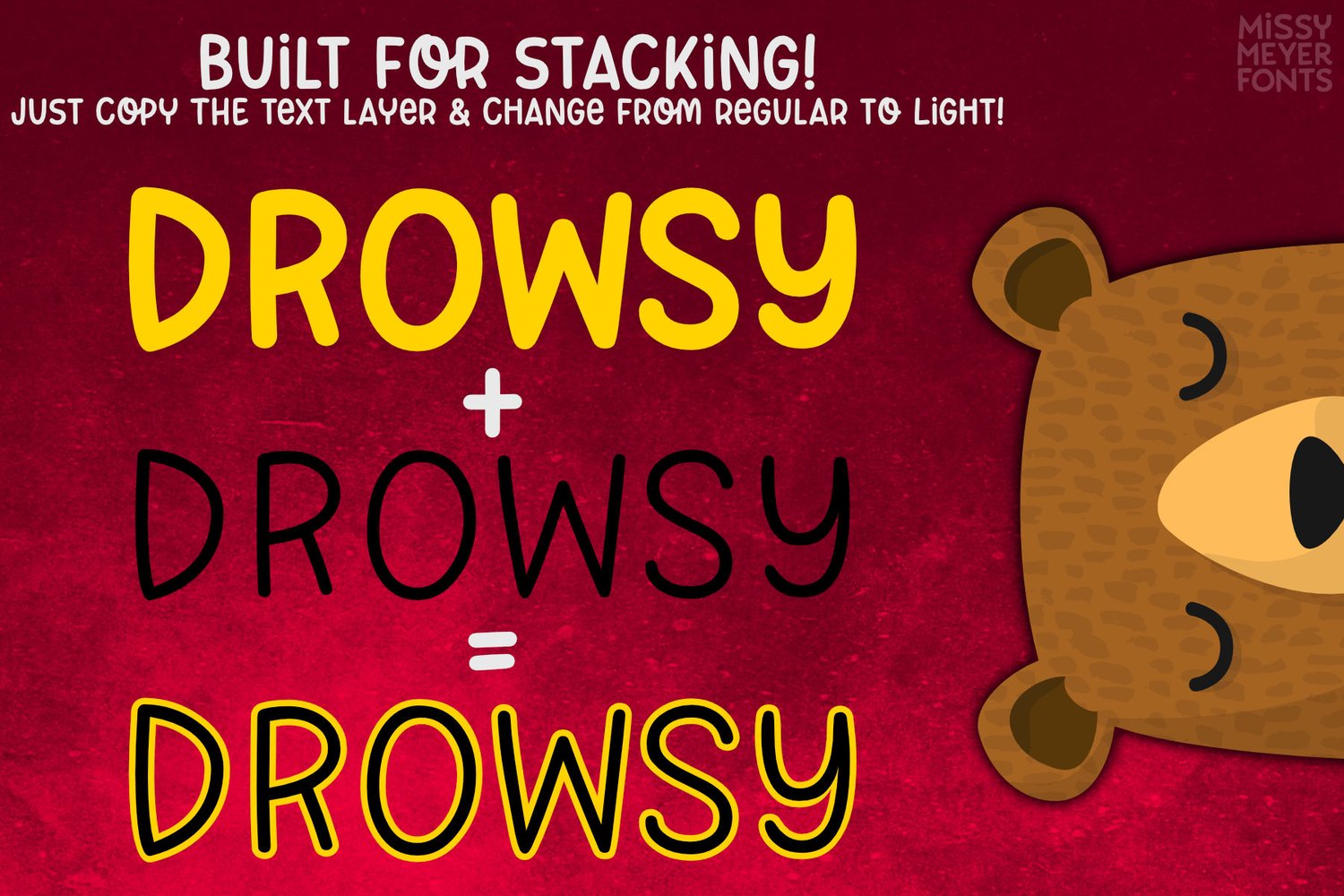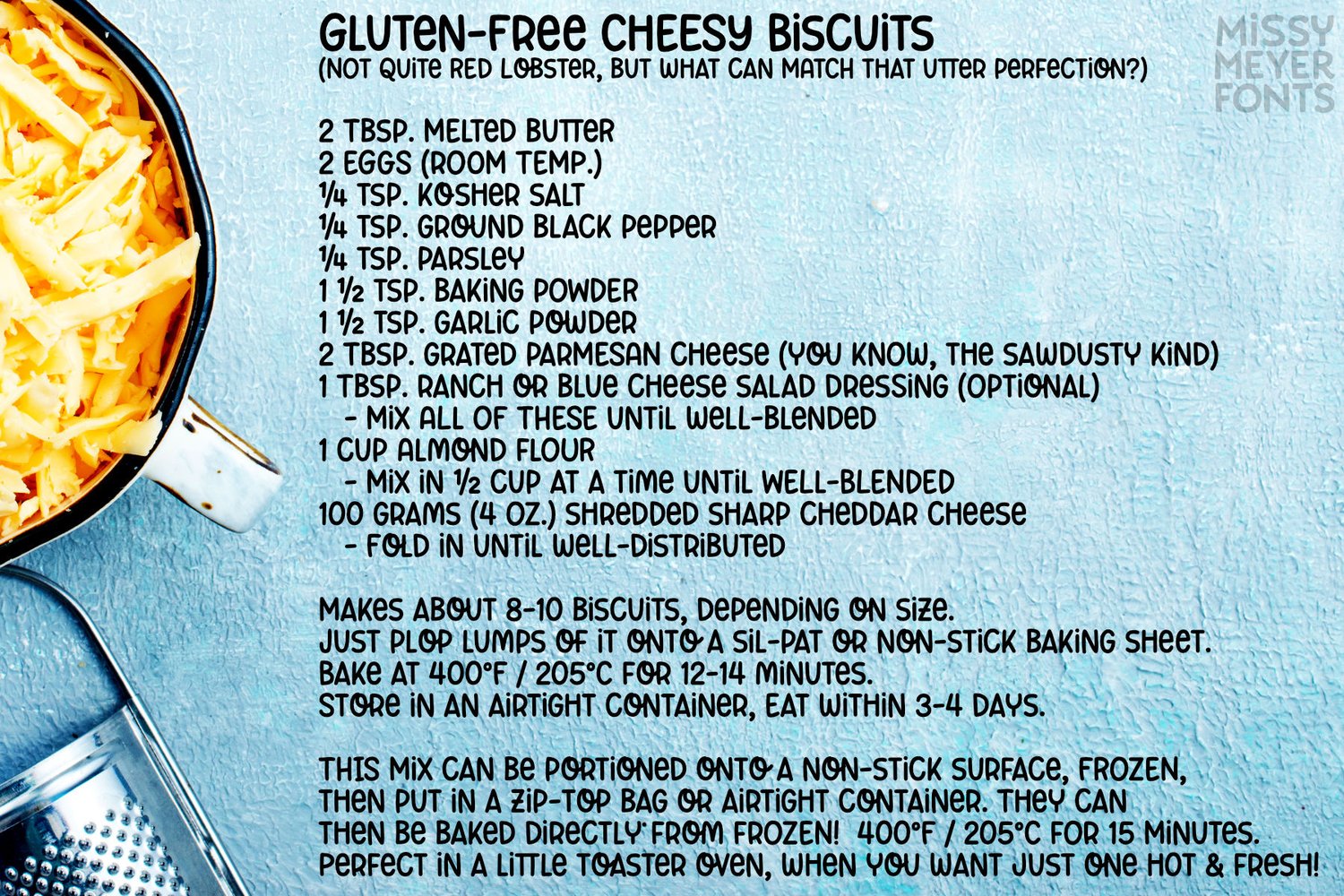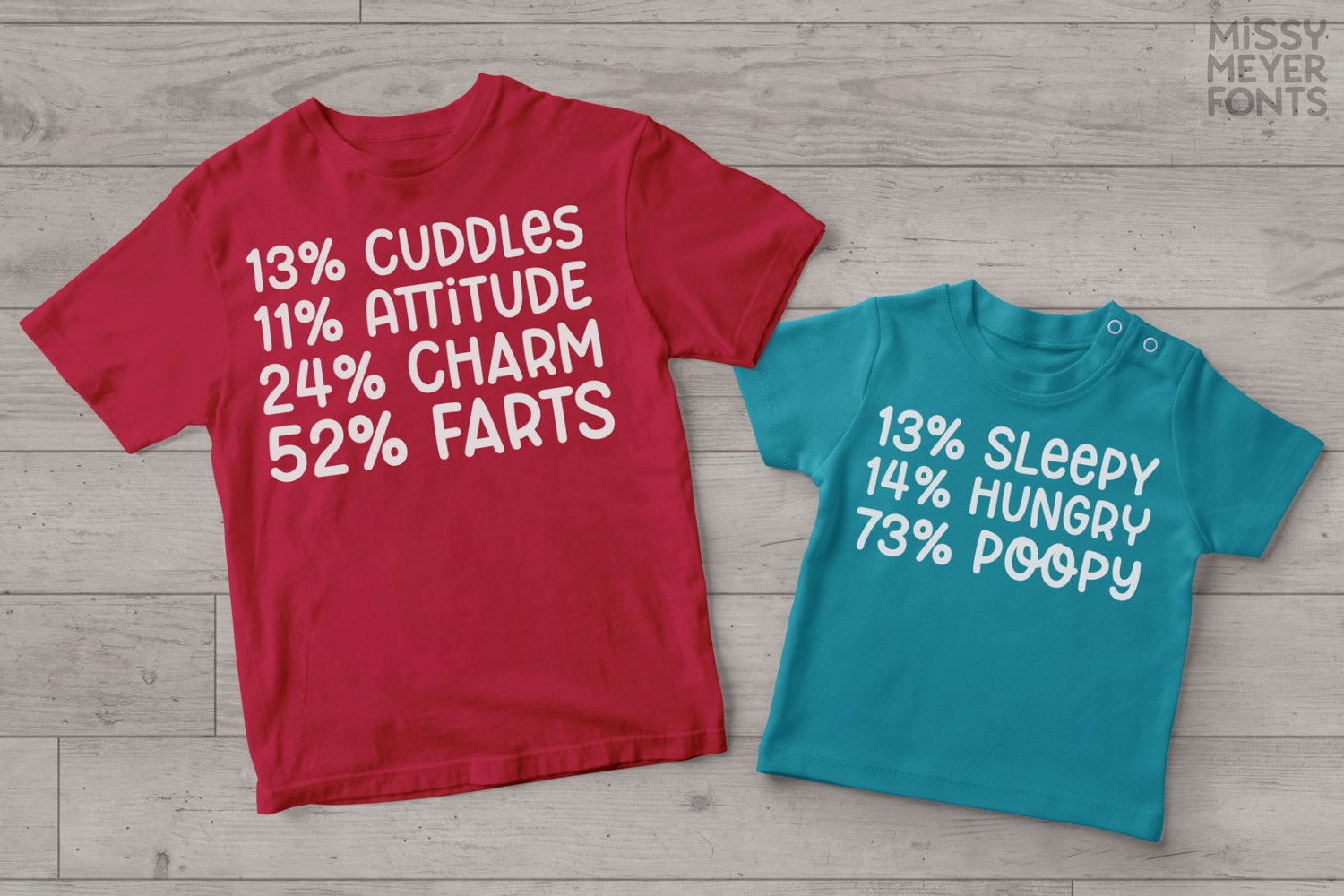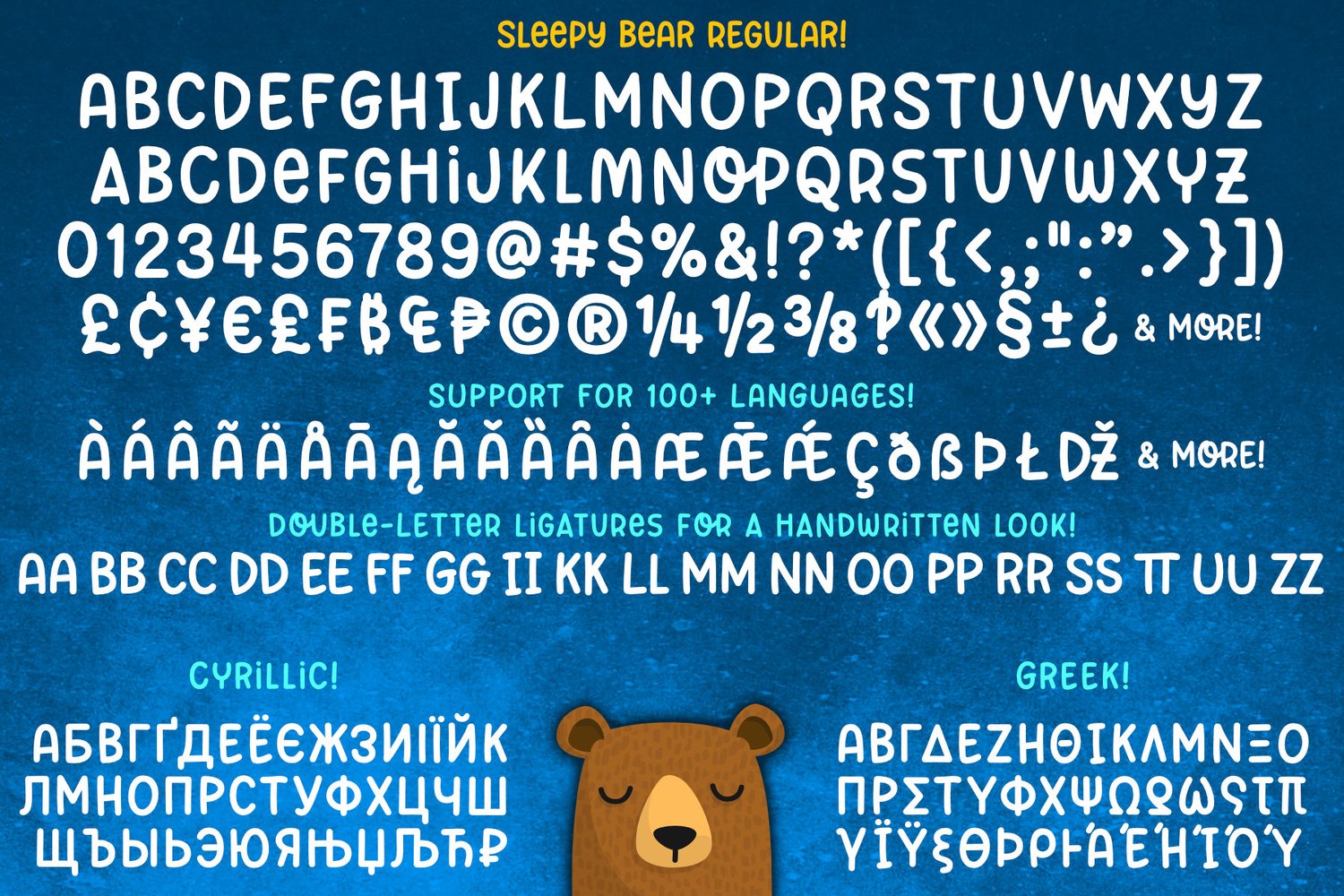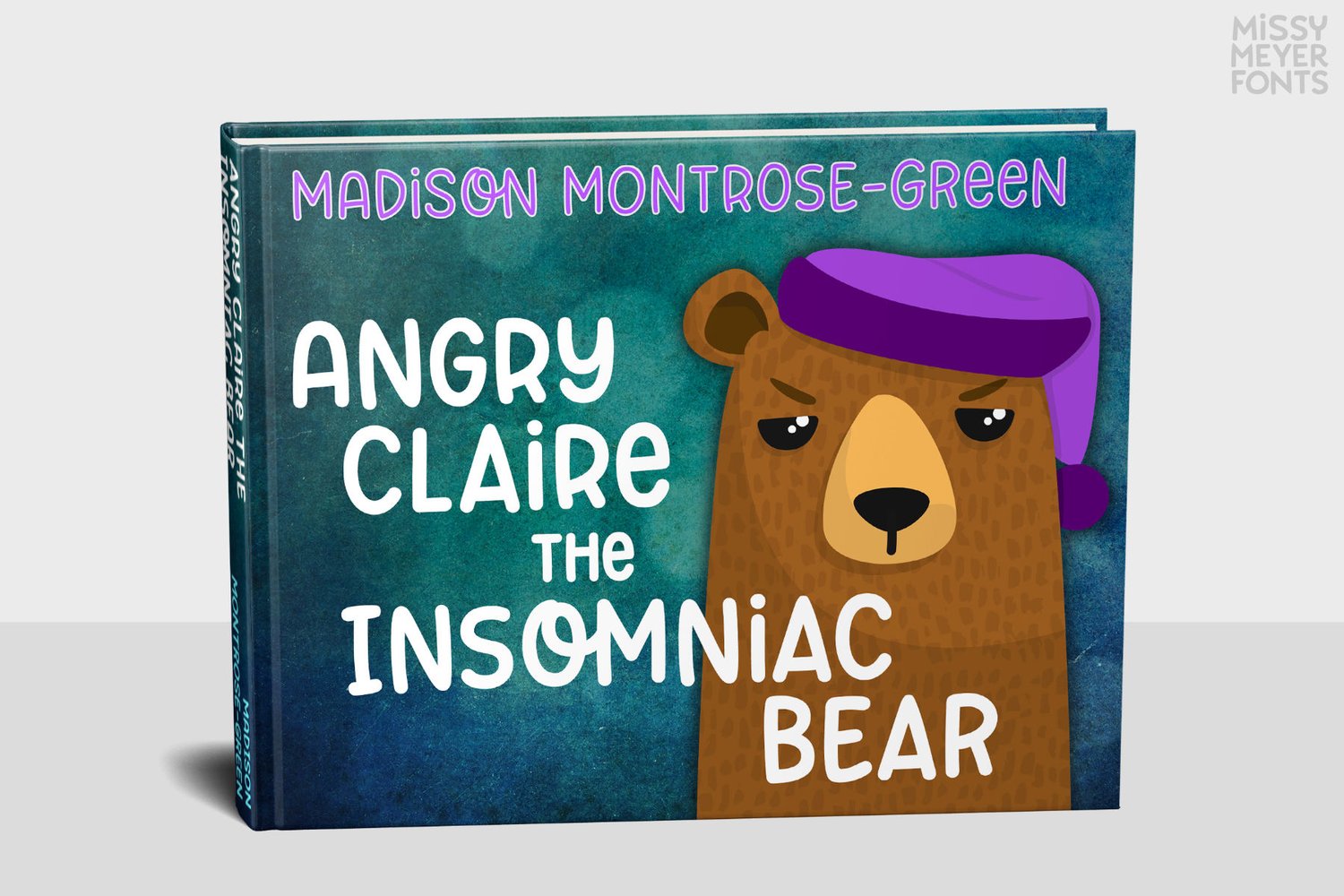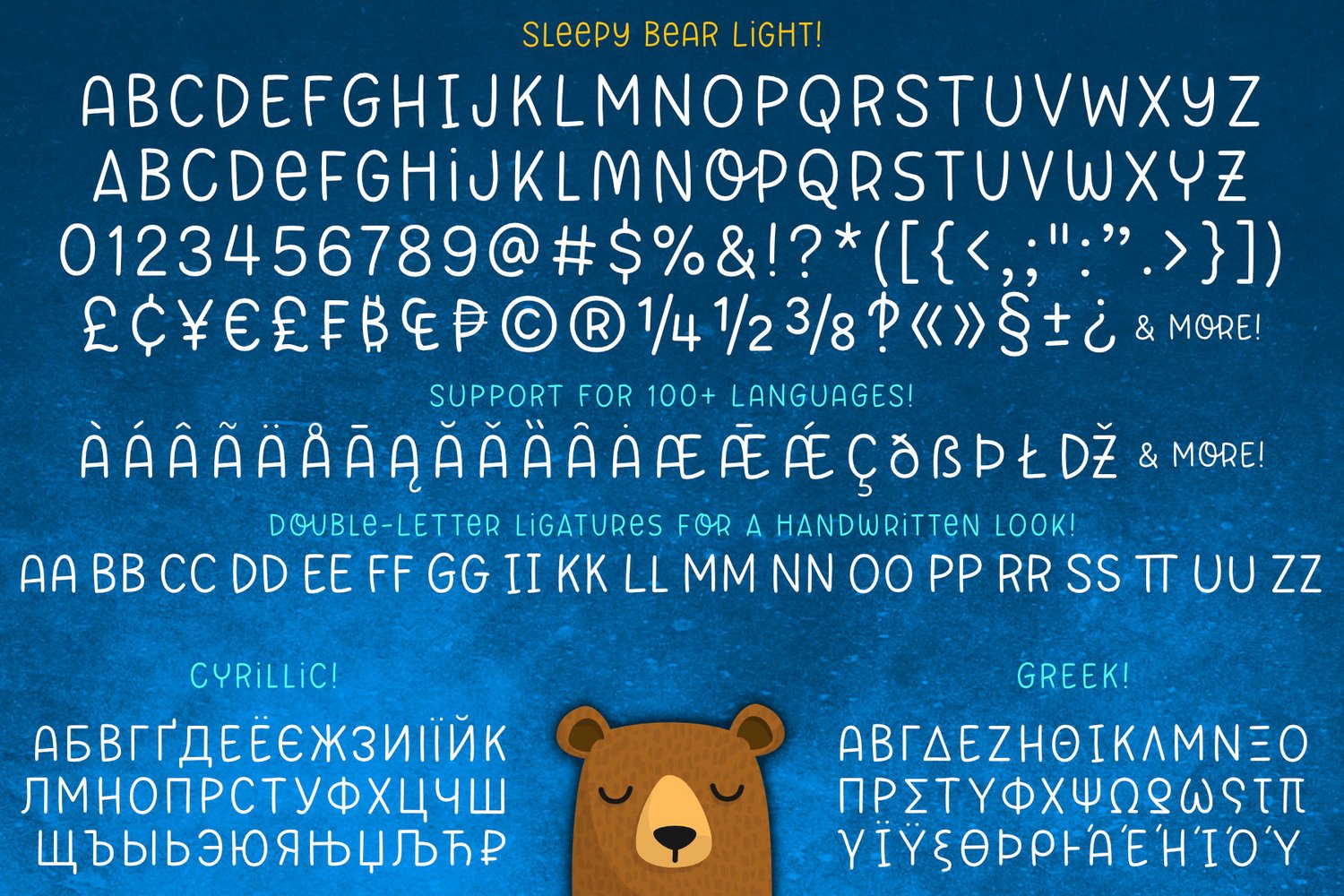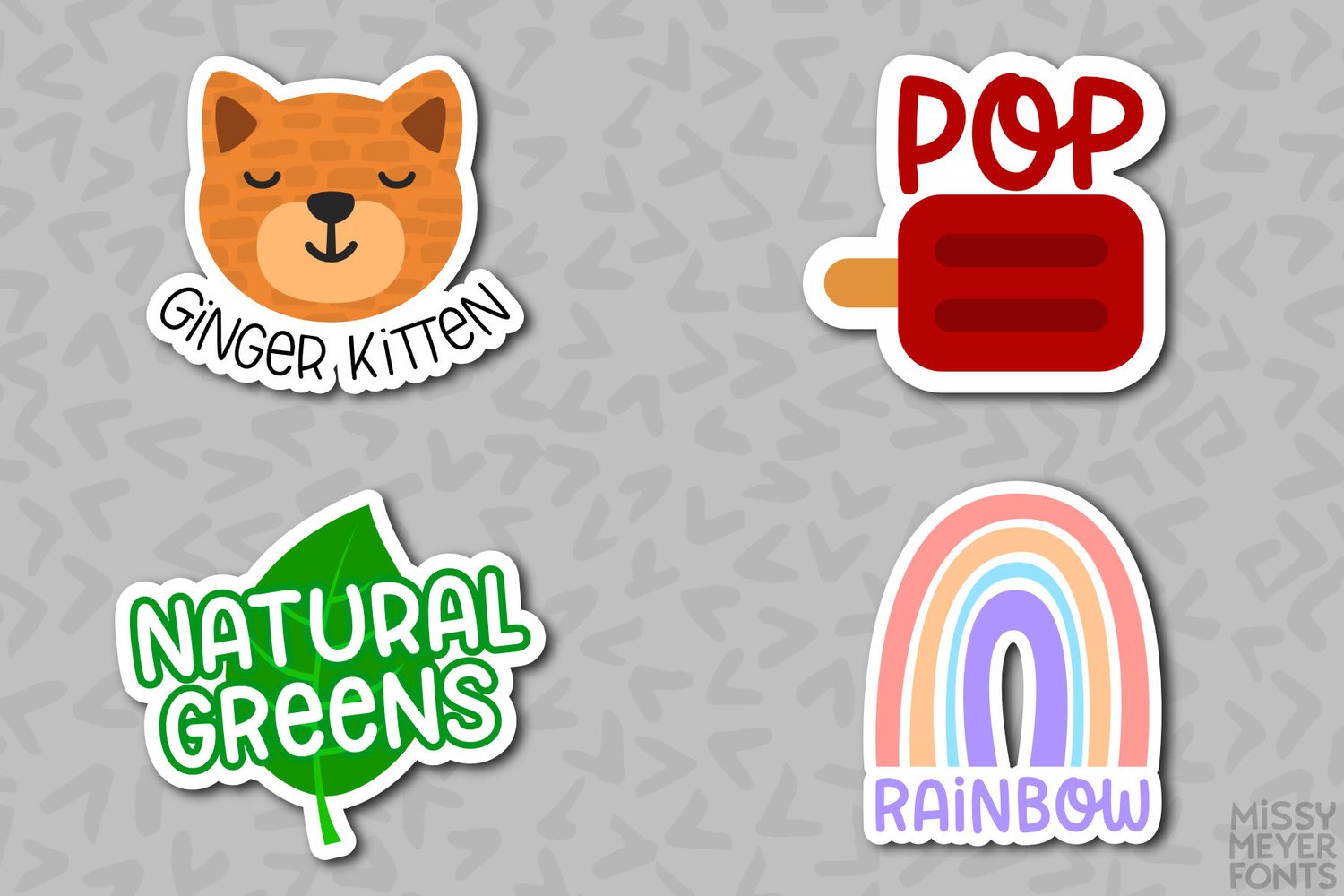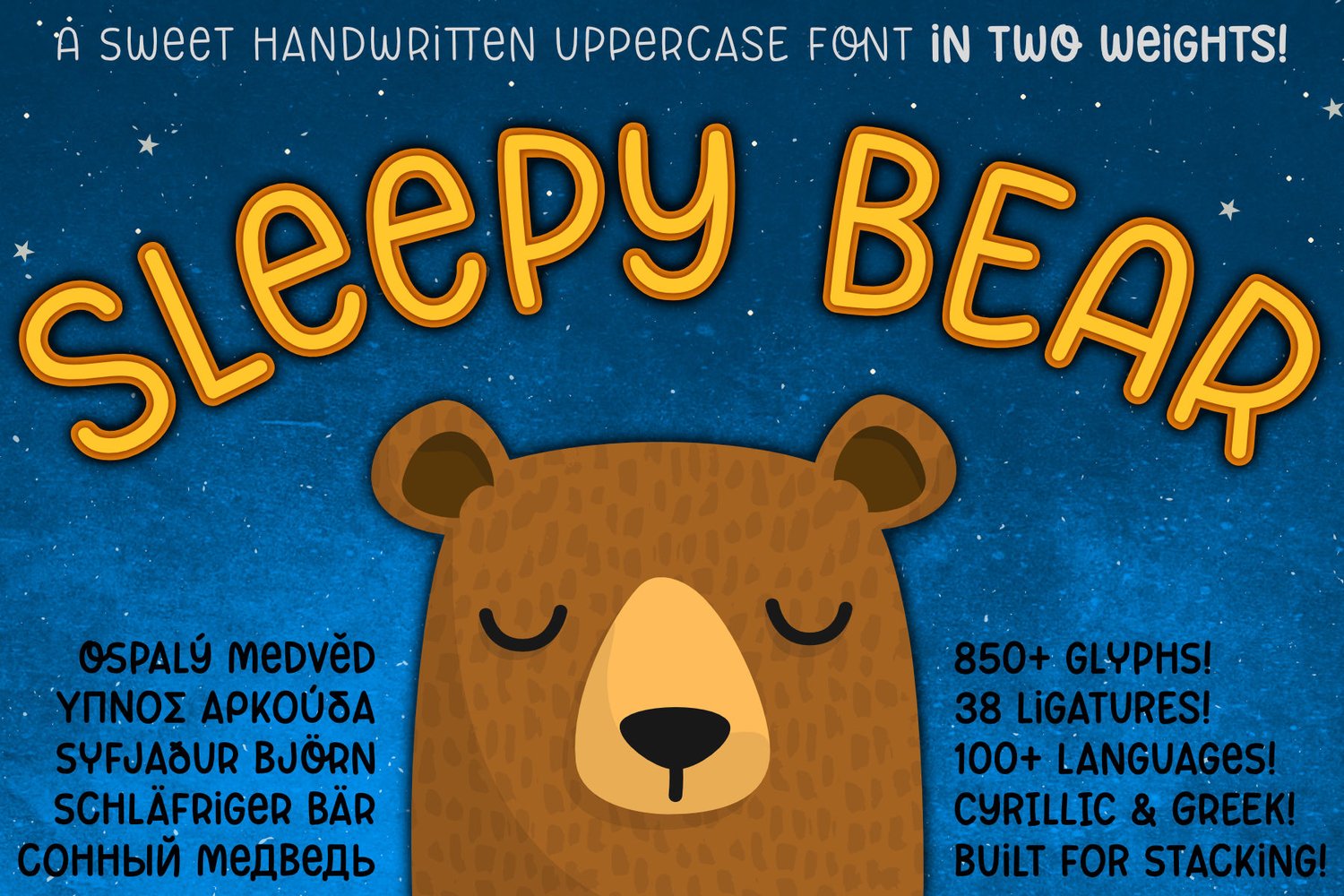
Sleepy Bear
I've been learning to read Cyrillic and Greek letters lately, mainly because I've been playing the game GeoGuessr. (If you haven't played it, I highly recommend! It plops you down somewhere in the world in Google Street View, and you have to figure out where you are.) Cyrillic shows up in so many more places than Russia! You can see it in Bulgaria, Mongolia, Serbia, Montenegro, Kyrgyzstan, and more.
Because of that, I made sure to include a fun double-uppercase version of those alphabet sets in Sleepy Bear. They're styled the same way as the Latin characters: all uppercase height, with some lowercase-styled letters thrown in at that same height for a fun look for all ages.
I've also made two weights of Sleepy Bear: a plump and smooth regular weight, and a lighter weight that's built to stack on top of the regular (though you can use it on its own). Just type out a word in Sleepy Bear, copy it, and then change the copy to Sleepy Bear Light. You'll get a great outline look in seconds!
All characters are extensively cleaned up, with smooth curves and rounded ends. Sleepy Bear is great for all print projects, and also cuts out of all materials like a dream. It's a cute and quirky monoline font family that's great for all of your family's designs.
Each font contains over 850 glyphs, and includes:
- Latin and extended Latin characters to support over 100 languages;
- Cyrillic and Greek double-uppercase alphabet sets;
- 18 fractions;
- Punctuation galore;
- 38 double-letter ligatures for variety (including international pairs like KK and II);
- And a half-dozen alternates for even more variety!